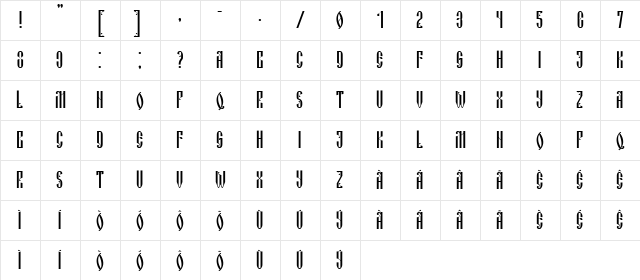
Russian Land Regular
Designer: Vladimir Nikolic. Additional characters added by Tuyn Pucca
Design Context for Russian Land
Russian Land is a composed and adaptable typeface that performs quietly and consistently across a wide range of design contexts.